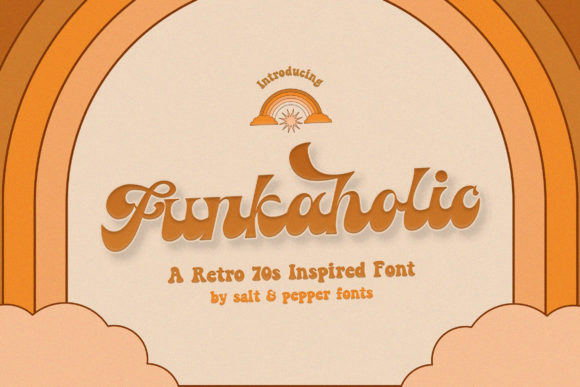
Journey into the realm of retro aesthetics with Funkaholic Font, the dazzling display font that breathes life into your designs. Unleash your creativity and transport your audience back to an era of bell bottoms and disco balls. Funkaholic's bold and confident strokes command attention, while its nostalgic charm adds a touch of playfulness to your projects.
See your words dance across the screen with Funkaholic's energetic personality. Its strong lines and dynamic curves create a visual symphony that captivates and engages. This font is a symphony of style and functionality, seamlessly blending retro vibes with modern versatility. Whether you're crafting eye-catching headlines, designing logos that ooze personality, or creating social media posts that pop, Funkaholic is your ticket to unforgettable designs.
Funkaholic's PUA encoding is the key to unlocking its full potential. With ease, access a treasure trove of glyphs and swashes that elevate your designs to new heights. Experiment with different combinations to create unique and captivating compositions that leave a lasting impression. Funkaholic is your gateway to a world of creative possibilities.
Seize the opportunity to make your designs shine with Funkaholic Font. Its distinctive retro style and remarkable versatility make it an indispensable tool for designers seeking to evoke nostalgia and create a lasting impact. Embrace the power of Funkaholic and witness your creative visions transformed into stunning realities.